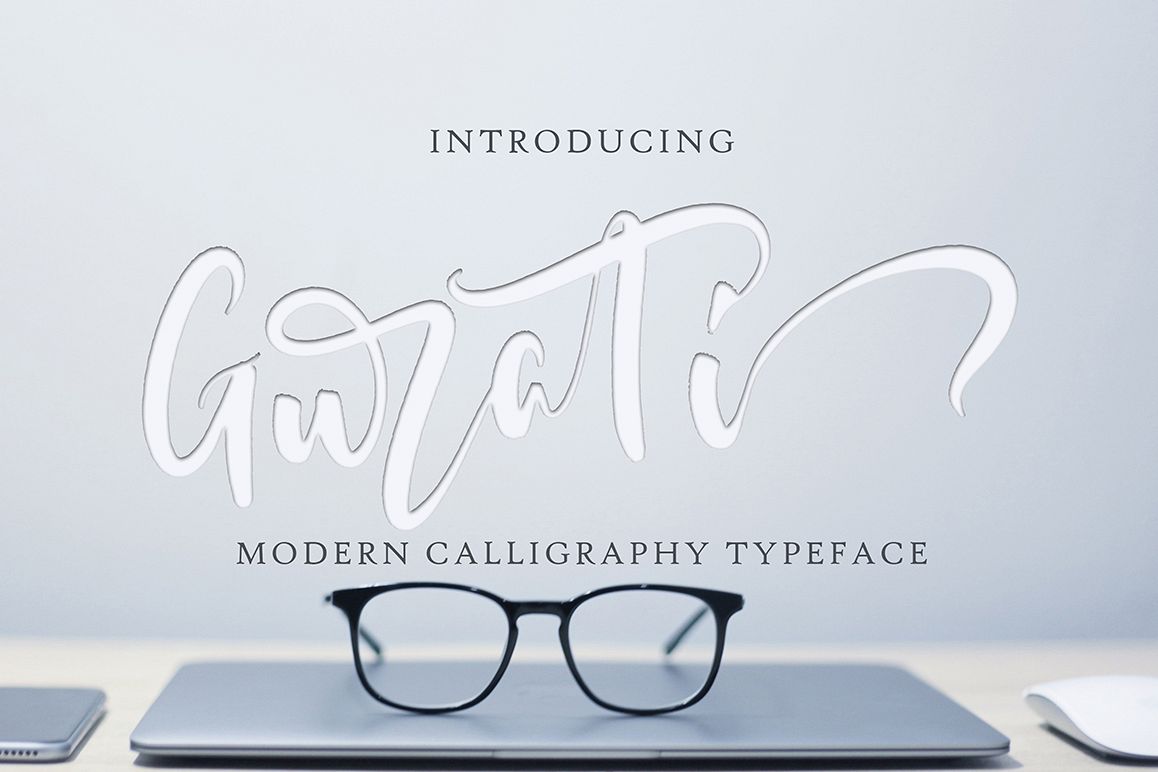
Gurati
Gurati modern script font with modern style, this font will perfect for many different project ex: quotes, logo, blog header, poster, wedding, banding, fashion, apparel, letter, invitation, stationery, etc...